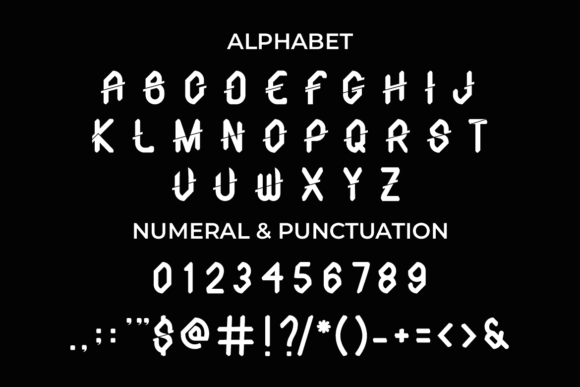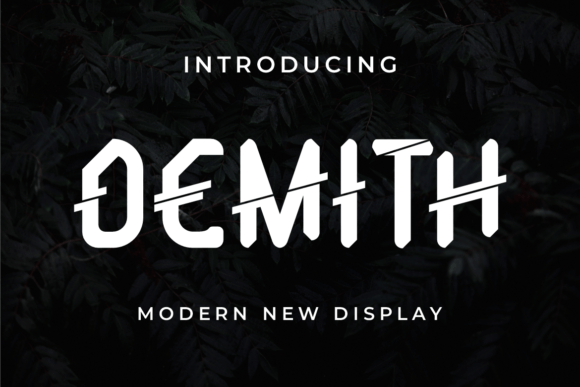
Introducing Demith Font: The Ultimate Modern Bold Display Font
In the world of typography, a good font can make all the difference in creating a lasting impression. For designers and crafters looking for a bold and authentic display font, Demith Font is an excellent choice. This modern font is designed to make a statement, and its versatility makes it suitable for a wide range of branding projects.
What is Demith Font?
DEMITH is a modern bold and authentic display font that is perfect for creating striking visuals. Its unique design elements make it stand out in a wide range of contexts, from logos and t-shirt printing to e-sport branding and more. With Demith Font, you can add a touch of sophistication and elegance to your designs while still conveying a sense of boldness and confidence.
Key Features of Demith Font
- Modern Design: Demith Font boasts a modern design that is both sleek and sophisticated. Its clean lines and bold typography make it perfect for creating eye-catching visuals.
- Bold and Authentic: This font is designed to make a statement. Its bold and authentic style ensures that your designs will stand out from the crowd.
- Versatile: Demith Font is suitable for a wide range of branding projects, including logos, t-shirt printing, e-sport branding, and more.
- Easy to Read: Despite its bold design, Demith Font is easy to read, making it perfect for use in a variety of contexts.
Use Cases for Demith Font
Demith Font is an incredibly versatile font that can be used in a variety of contexts. Here are some use cases where Demith Font excels:
- Logo Design: Create a bold and memorable logo for your brand with Demith Font.
- T-Shirt Printing: Add a touch of style to your t-shirt designs with Demith Font.
- E-Sport Branding: Create a professional and bold brand identity for your e-sport team with Demith Font.
- Advertising: Use Demith Font to create eye-catching ads that grab attention.
- Packaging Design: Add a touch of sophistication to your packaging designs with Demith Font.
Why Choose Demith Font?
With so many fonts available, why choose Demith Font? Here are a few reasons why Demith Font stands out:
- Unique Design: Demith Font has a unique design that sets it apart from other fonts.
- High-Quality: Demith Font is a high-quality font that is designed to produce crisp and clear results.
In conclusion, Demith Font is an excellent choice for designers and crafters looking for a modern bold and authentic display font. Its unique design, versatility, and ease of use make it perfect for a wide range of branding projects. Whether you’re creating a logo, t-shirt design, or e-sport brand identity, Demith Font is sure to make a lasting impression.